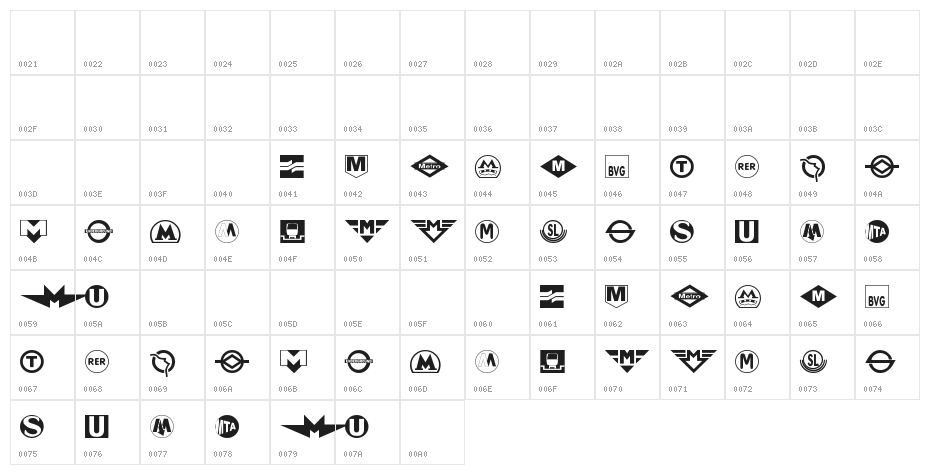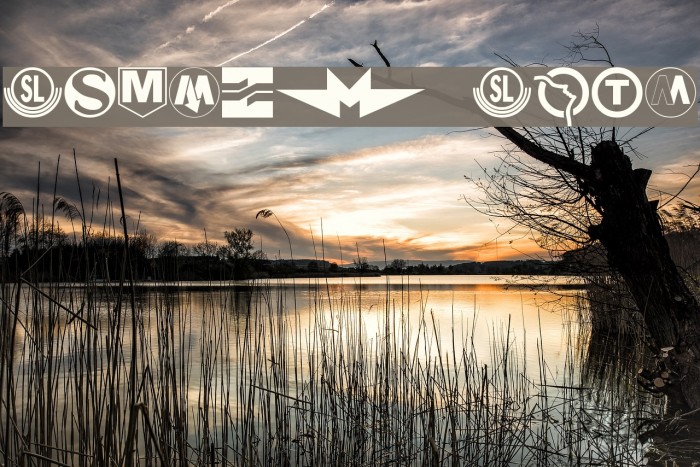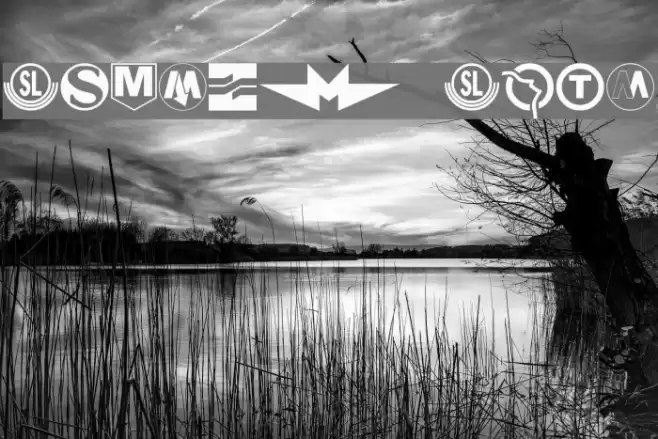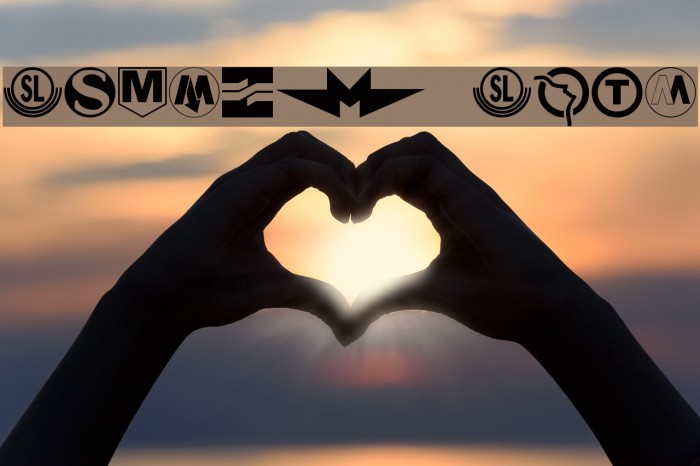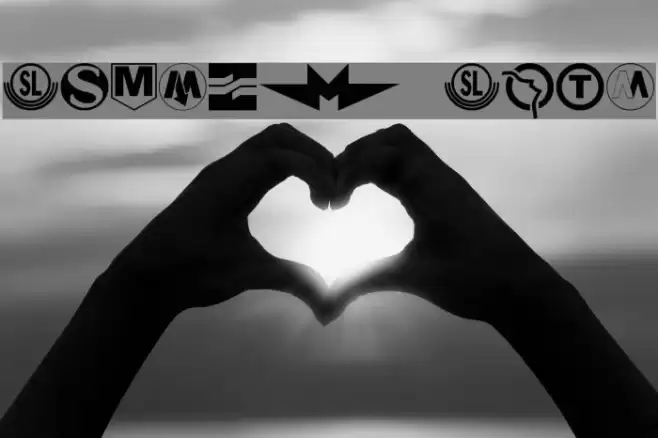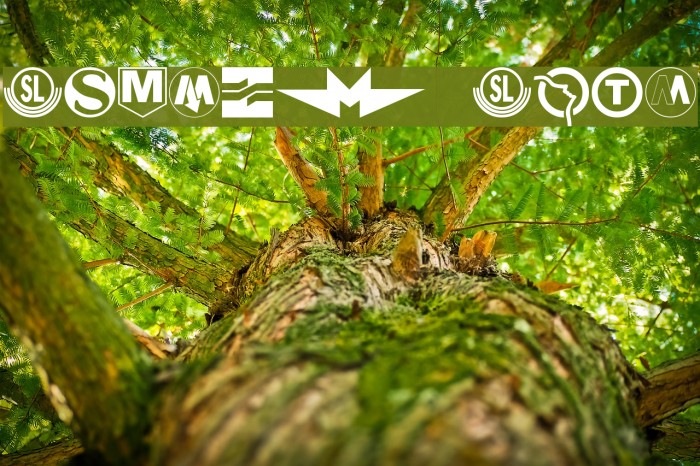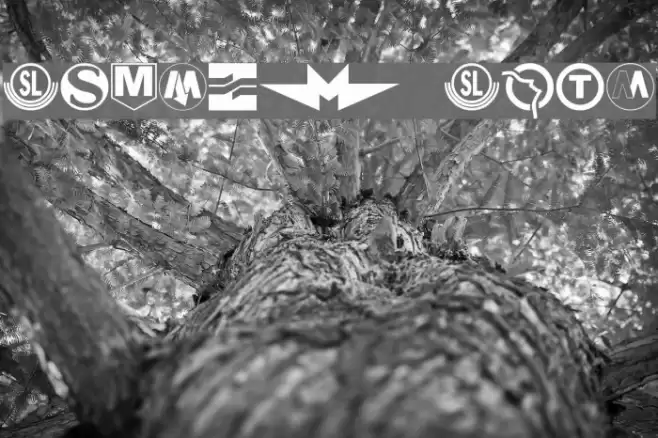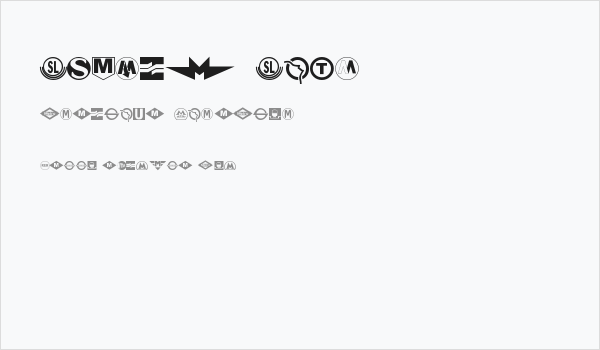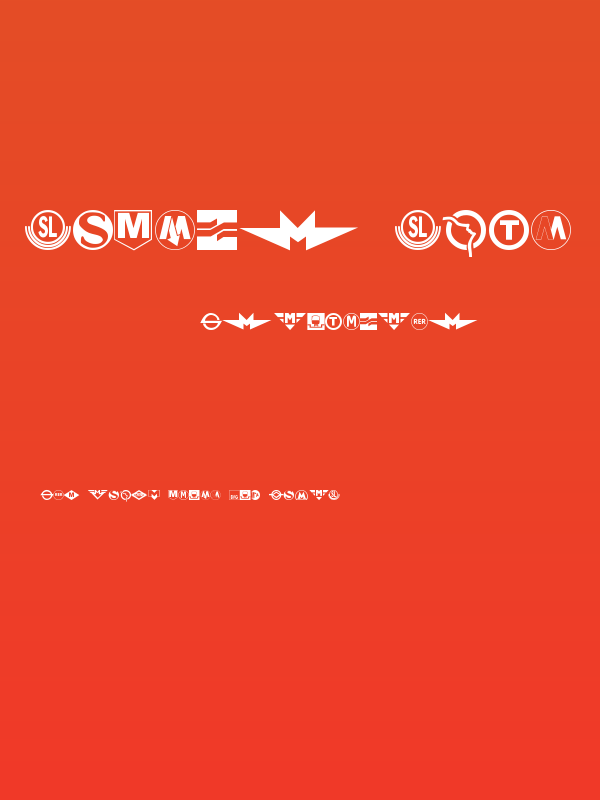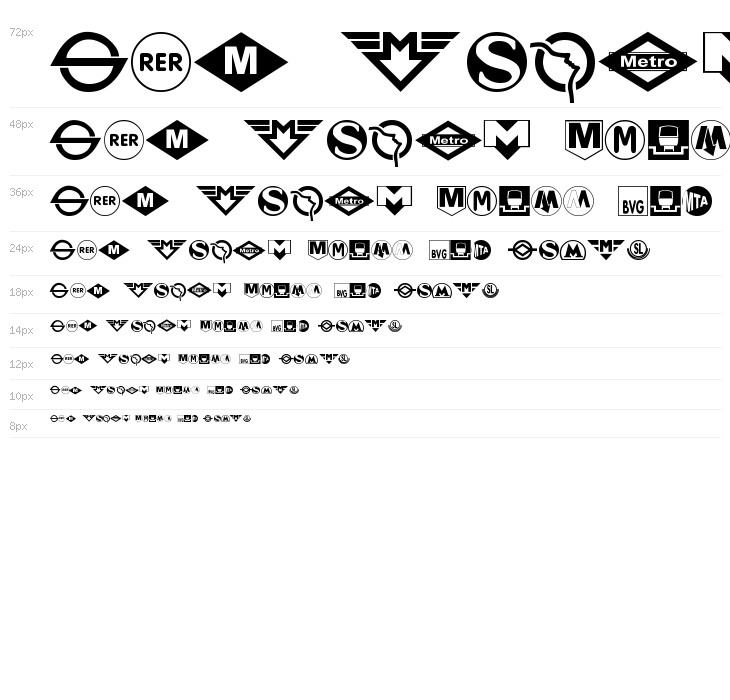
Subway Sign Font
Subway Sign Description
A collection of bold, geometric glyphs inspired by international subway and metro signage, featuring a mix of enclosed letters, arrows, and transit symbols in black and white. The characters are highly stylized, with strong contrast and clear, legible forms, often contained within circles, squares, or diamonds.
| Overall Style | Modern, Urban, Decorative |
| Use Case | Logos, Headlines, Posters, Signage |
| Proposed Projects | Urban branding, transport maps, posters, signage, editorial layouts, themed event graphics. |